41 Cool Cyber & Futuristic Fonts
Looking for cool futuristic fonts to use in your latest designs?
Today we'll take a look at 39 of the best futuristic fonts you can find at Envato Elements
41 Cool Cyber & Futuristic Fonts
Hello Space Futuristic Display Font (OTF)
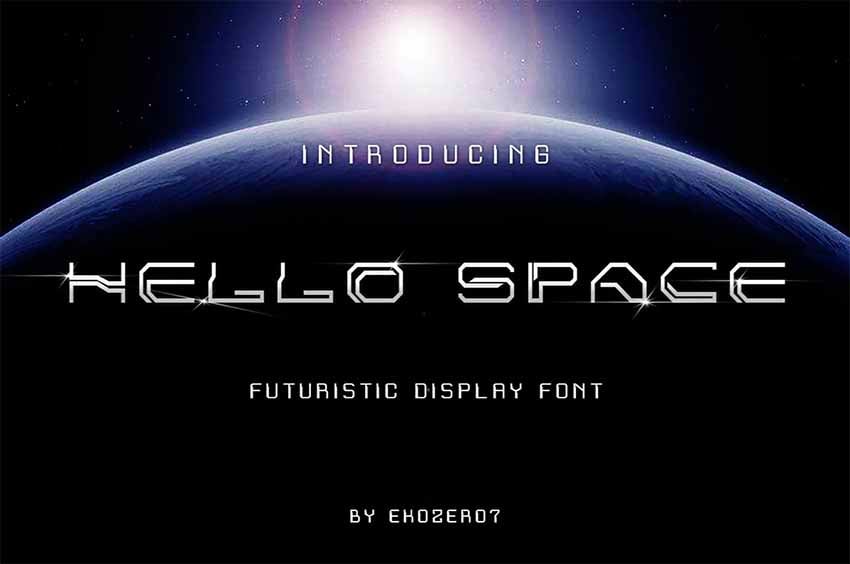
Looking for a cyber font with a futuristic vibe? Look no further than Hello Space Futuristic Display Font, a terrific display font that's perfect for logos, branding, product packaging, and more.
Cyber Fonts (TTF, OTF, WOFF)
Check out Cyber Fonts, a cool font made from pixels. It perfectly combines elements of sci-fi with a techno vibe, making it a great choice for all kinds of technology and futuristic projects.
Loomattic Futuristic Digital Fonts (TTF, OTF, WOFF)
This awesome futuristic font is all you need when you want to create riveting logos, branding materials, and other stand-out media. Loomattic Futuristic Digital Fonts is perfect for projects like branding, advertisement, product packaging, and more.
Cyber City Font (TTF, OTF)
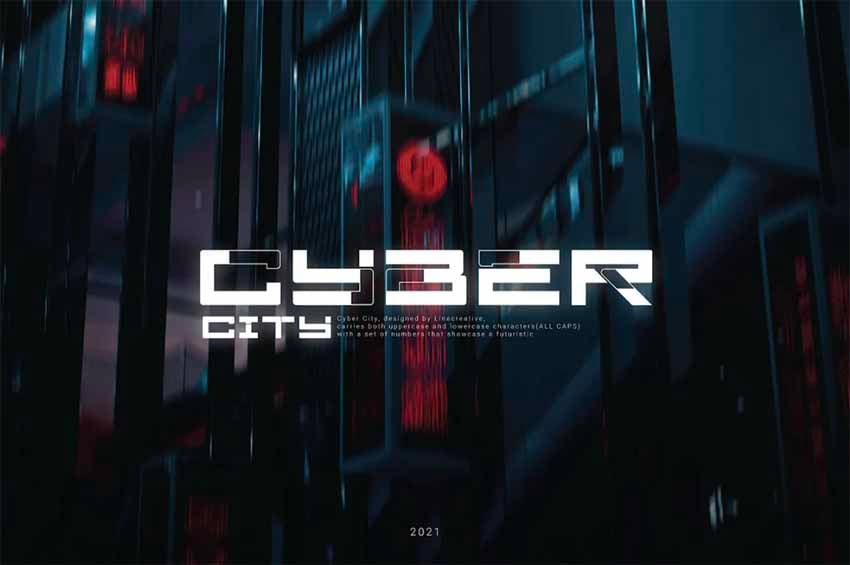
Cyber City Font is as cool and fun as it gets. The uppercase and lowercase characters offer different font styles. This is a terrific font for experimenting when you're looking for a cool futuristic look.
Cuda Futuristic Techno Fonts (TTF, OTF, WOFF, SVG)
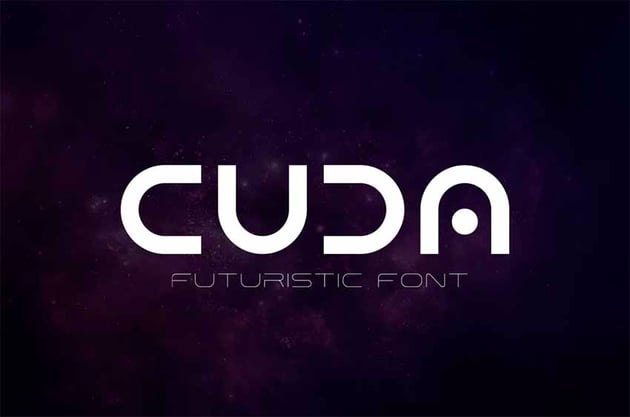
Cuda Futuristic Techno Fonts is one of those font designs that is simple yet powerful. This stylish sans serif typeface is great for titles, header text, posters, and signage.
Noventa Futuristic Font Style (TTF, WOFF)
Nothing says sci-fi futuristic fonts like Noventa Futuristic Font Style. This bold, futuristic font is the ultimate display font for games, music, movie titles, brands, and many more. The set includes 117 glyphs, plus a number of alternates and stylistic sets.
Cyber Grose: Cyber Punk Fonts (TTF, OTF, WOFF)
Powerful, sporty, and futuristic, Cyber Grose is an eye-catching techno cyber font that is irresistible.
Hacker Futuristic Techno Fonts (TTF, OTF, WOFF)
This rounded display font claims its place as a futuristic font even though it has the retro vibe of 1980s computer text. Hacker Futuristic Techno Fonts is an excellent choice for projects related to technology, communication, coding, data, electronics, and much more.
Cyber Punk Fonts (TTF, OTF, WOFF, SVG)
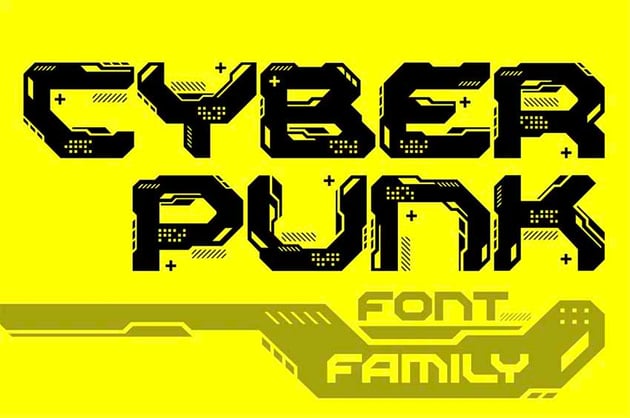
The word cyber reaches into the future, while punk hearkens back to the past. That's probably what makes Cyber Punk Fonts so irresistible. The font is offered regular and light versions that you can mix and match to create the unique look you're after.
CyberFlash Futuristic Block Font (TTF, OTF)
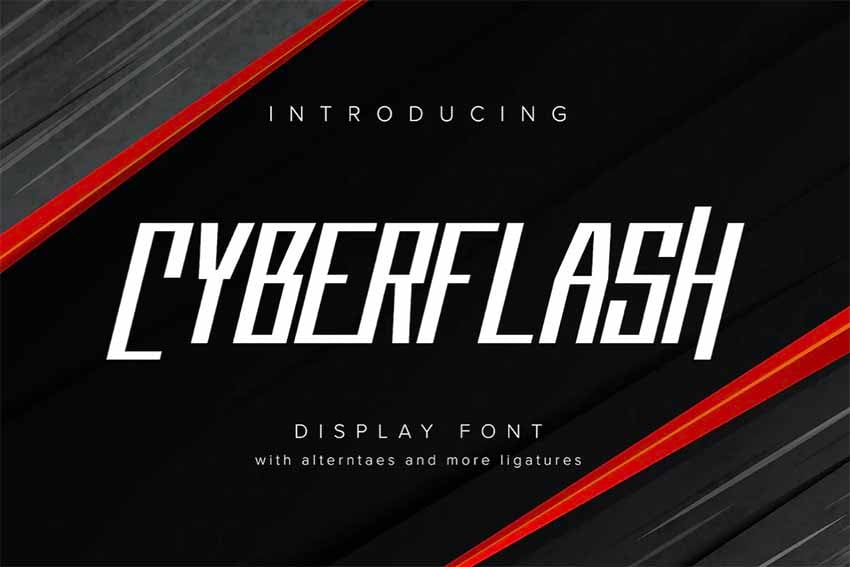
With tons of glyphs, alternates, and ligatures, CyberFlash Futuristic Block Font is an easy fit in this list of the best futuristic fonts. Use it for any number of projects from logo creation to posters.
Flare Futuristic Space Font (TTF, OTF, WOFF)
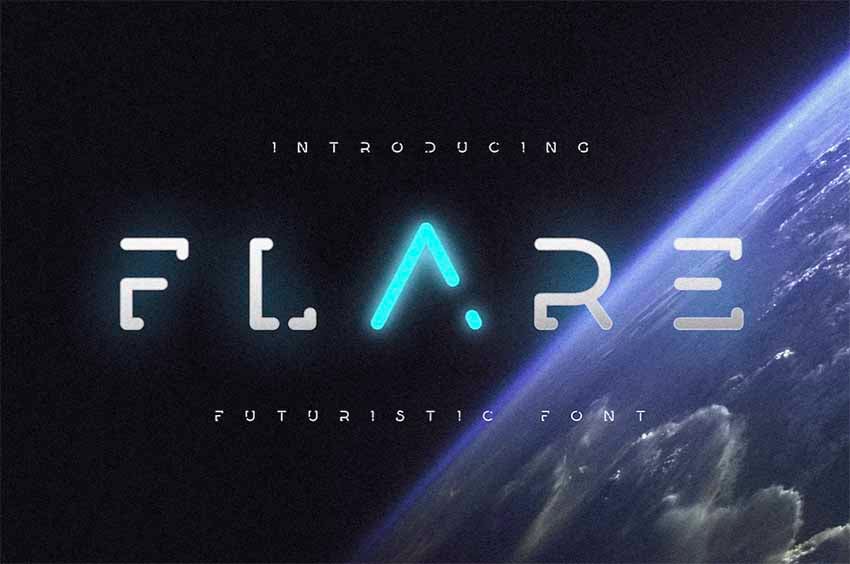
Flare Futuristic Space Font undoubtedly has an Alien movie vibe that can only enhance your technological, sci-fi, and other futuristic projects.
Alfa Futuristic Fonts (TTF, OTF, WOFF)
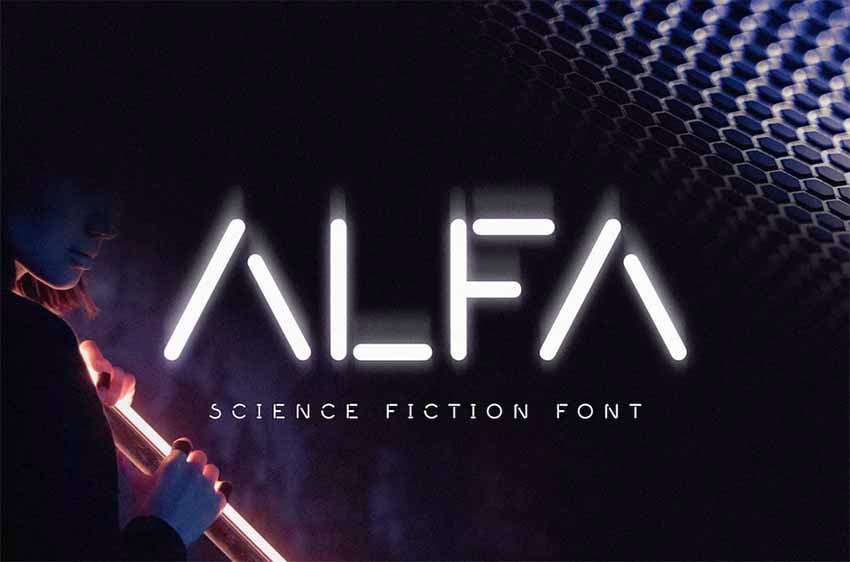
Very reminiscent of the previous font Flare, but with its own cool vibe, Alfa Futuristic Fonts is great for titles, posters, T-shirts, branding, and more.
Cygun Cybernetic Font (TTF, OTF, WOFF, EOT, SVG)
How cool is Cygun Cybernetic Font? This bold and unique font will draw attention to your project without fail.
TechTechno Capsule Futuristic Fonts (TTF, OTF)
An all-caps typeface inspired by androids, TechTechno Capsule Futuristic Fonts is an excellent choice of font for video games, branding, motion graphics, etc.
Dynemix Futuristic Font Style (TTF, WOFF)
Proof that simple doesn't have to be boring, Dynemix Futuristic Font Style is a workhorse font that you should definitely have in your font library.
MBF Modern Rebel Futuristic Block Font (TTF, OTF)
MBF Modern Rebel Futuristic Block Font is a gorgeous futuristic font that's perfect for large-scale projects where you need a distinct font that will stand out. Use it for billboards, posters, branding, signage, etc.
Future Technos Cyber Futuristic Font (TTF, OTF)
Future Technos Cyber Futuristic Font is another bold and eye-catching font that you can use when you need your text to stand out in big projects but still retain a bit of creative edginess.
Newon Cybernetic Font (TTF, OTF, WOFF)
If you love neon lights, you'll go crazy over Newon Cybernetic Font, which offers a floating neon-light look that is unique and unforgettable.